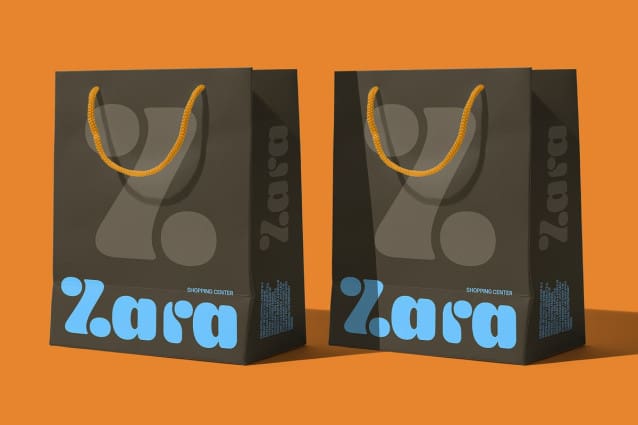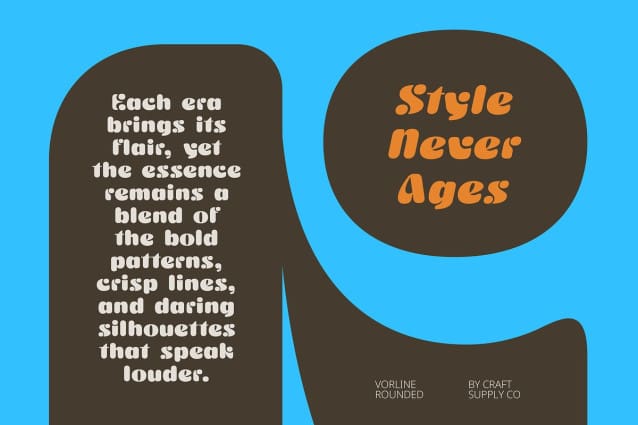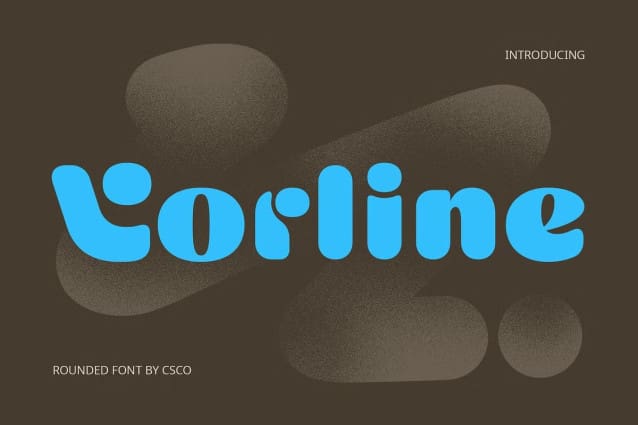
Vorline Rounded Font
Vorline Rounded Font is a bold sans-serif display font that masterfully combines strength with a warm, approachable design. Its thick, rounded letterforms create a harmonious balance of modernity and friendliness, making it a versatile choice for a wide variety of design applications. The smooth, curved edges ensure a welcoming vibe, while the strong letterforms add a solid, confident presence, making this font perfect for any project that requires both impact and accessibility.
A Perfect Blend of Strength and Warmth Designed with boldness and clarity in mind, Vorline Rounded delivers a strong visual impression, while its rounded structure softens the aesthetic, making it ideal for both professional and playful contexts. Whether you’re crafting dynamic headlines or developing a strong brand identity, this font’s structure guarantees high readability without sacrificing style.
Ideal for Versatile Design Needs From branding and logos to packaging, promotional materials, and large-scale headlines, Vorline Rounded excels in any design that needs to attract attention while remaining approachable. Its bold, rounded forms give a sense of reliability, making it the perfect choice for businesses looking to create a strong, memorable brand, yet still convey a sense of warmth and friendliness. The font’s versatility makes it suitable for a wide array of creative projects, including advertising campaigns, product labels, and event posters.